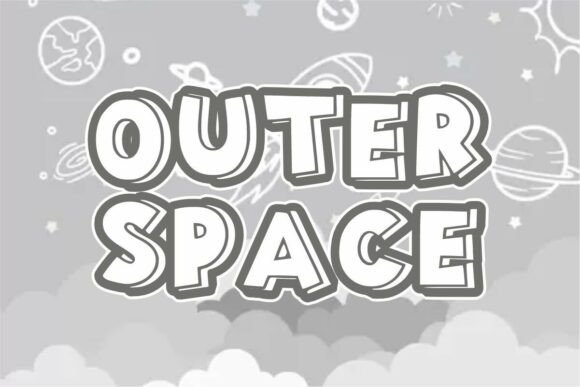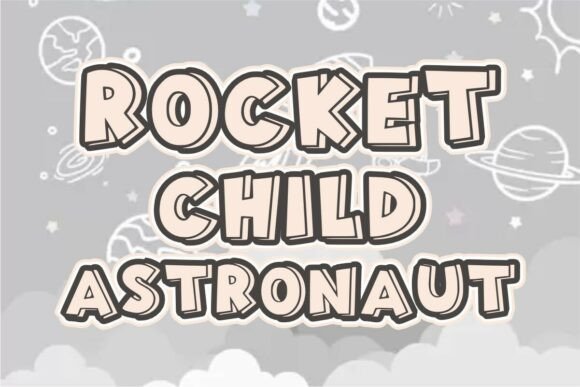
Introduction to Roket Beat Font
“Roket Beat” is a contemporary display font designed with a touch of captivating imagination.
Each character exudes charm and playfulness, making it easy to incorporate into your projects Find a seamless fit for sublimation designs on a variety of products such as t-shirts, mugs, tote bags, and more.
Key Features of Roket Beat Font
Why Choose Roket Beat Font?
Roket Beat Font offers exceptional quality and versatility, making it a valuable addition to your design toolkit. Whether you’re creating for personal projects or commercial use, Roket Beat Font delivers professional results.